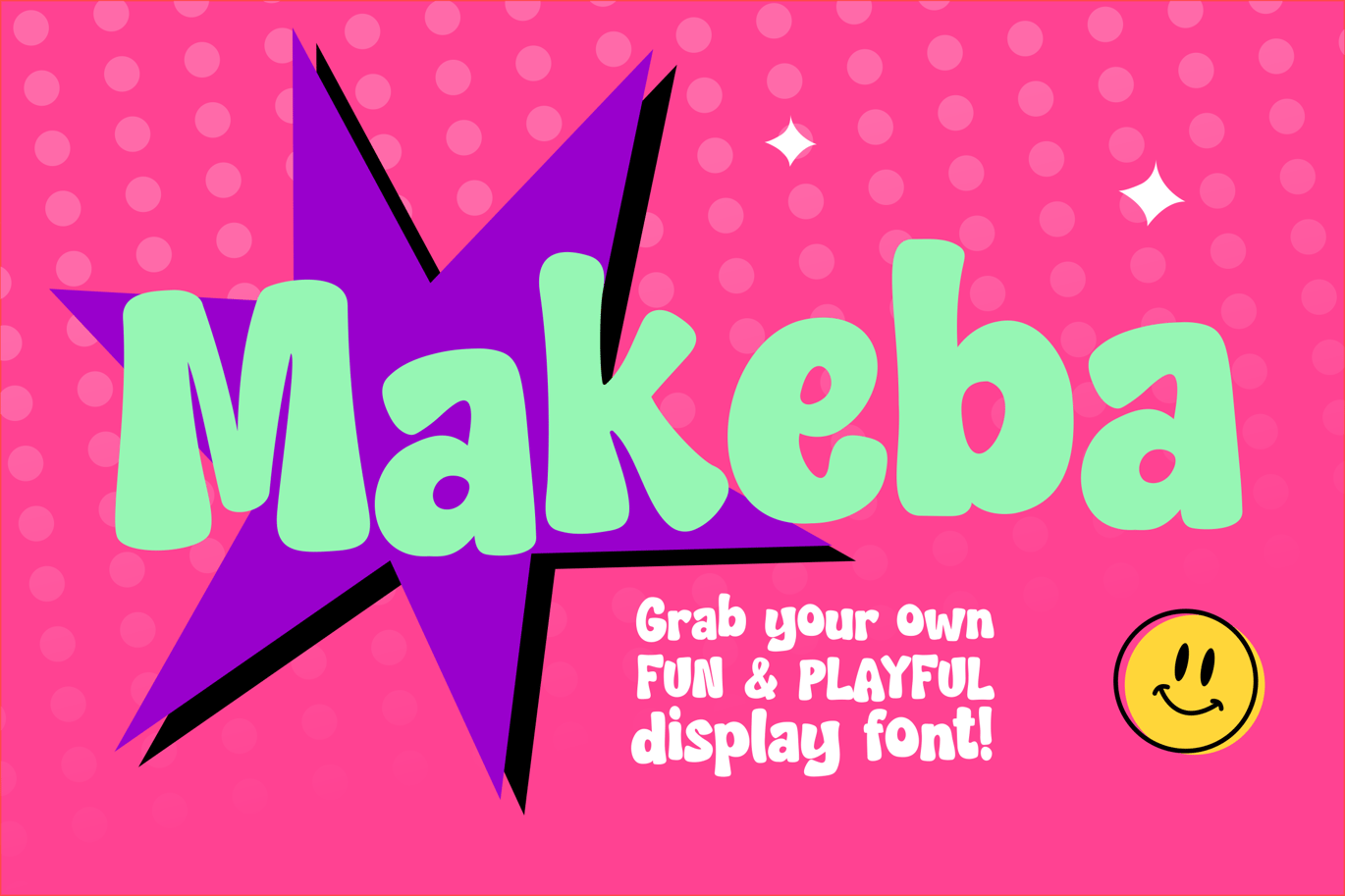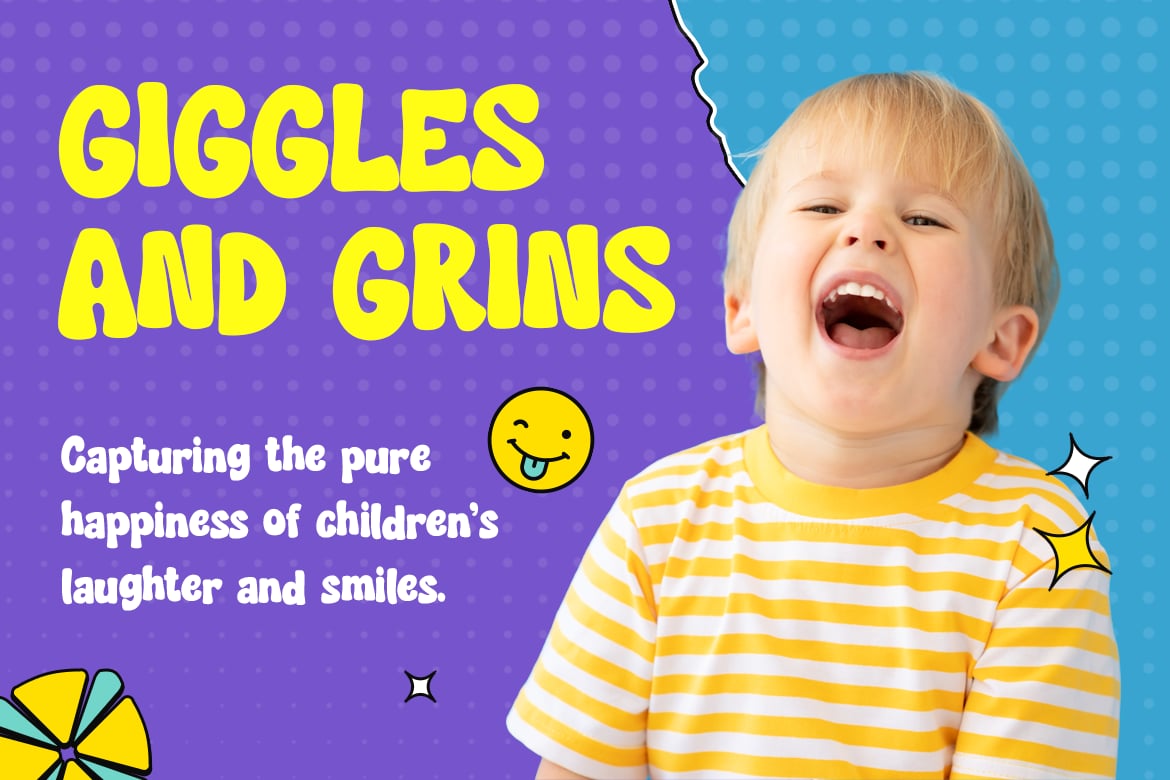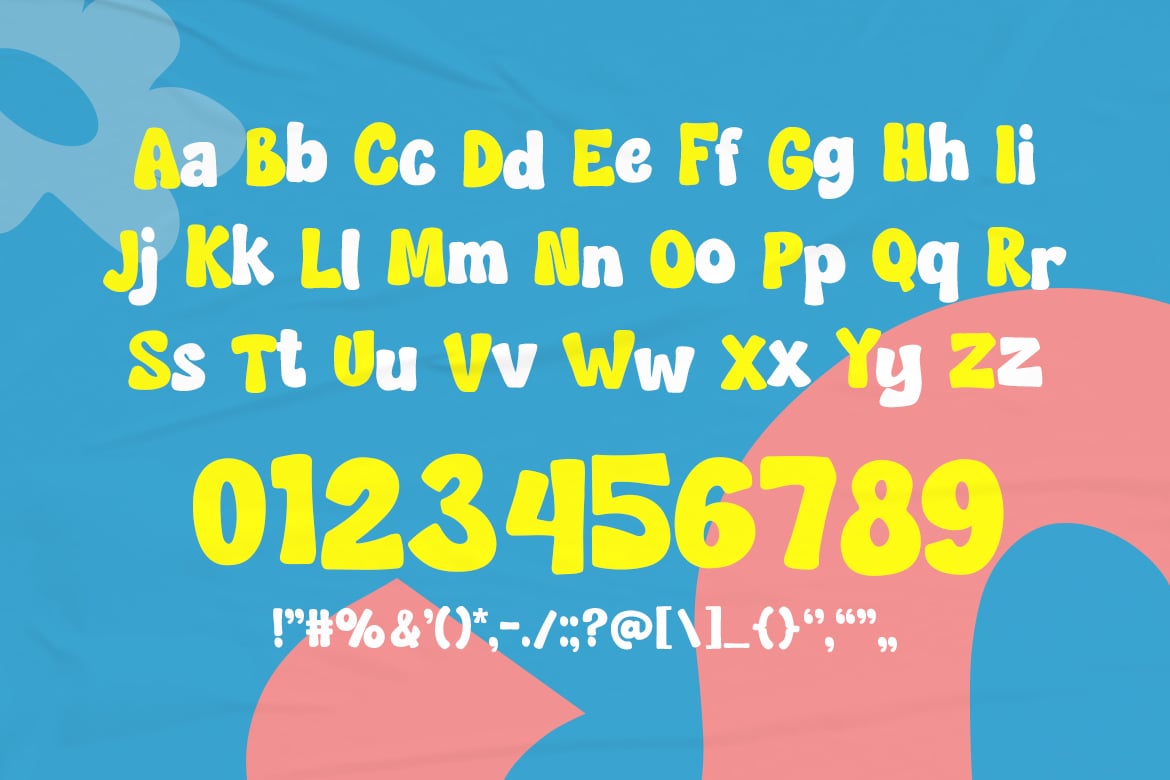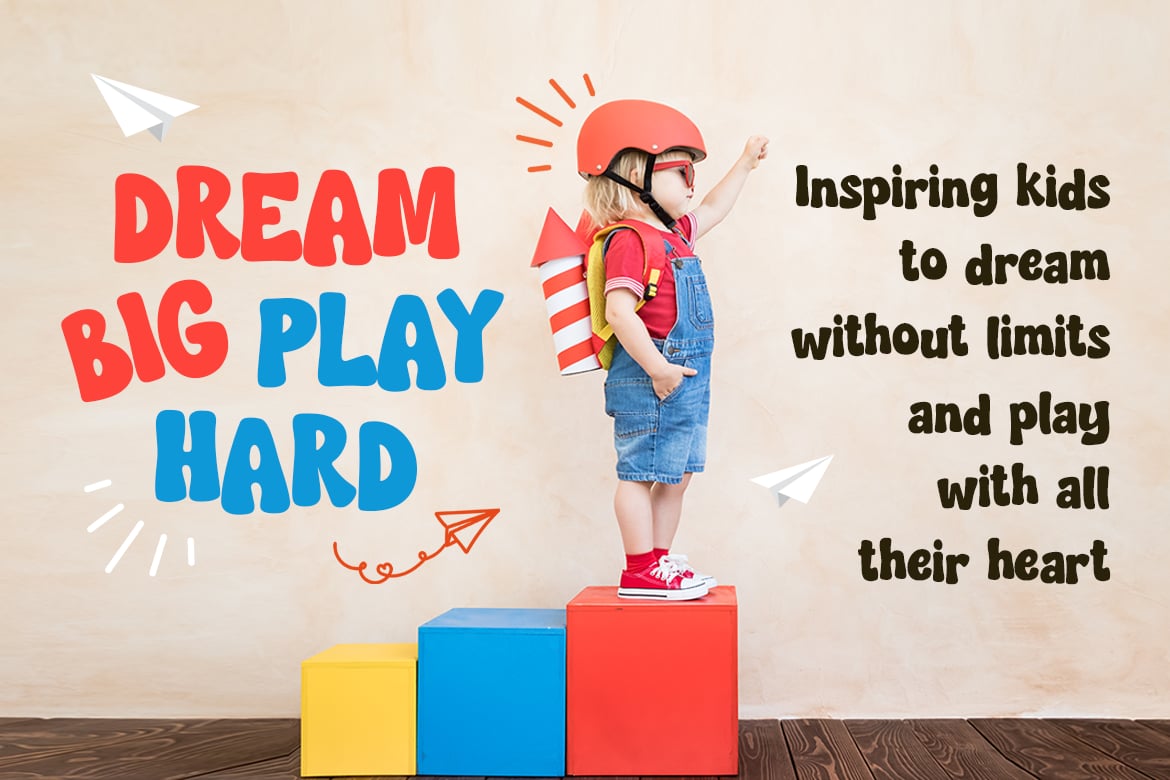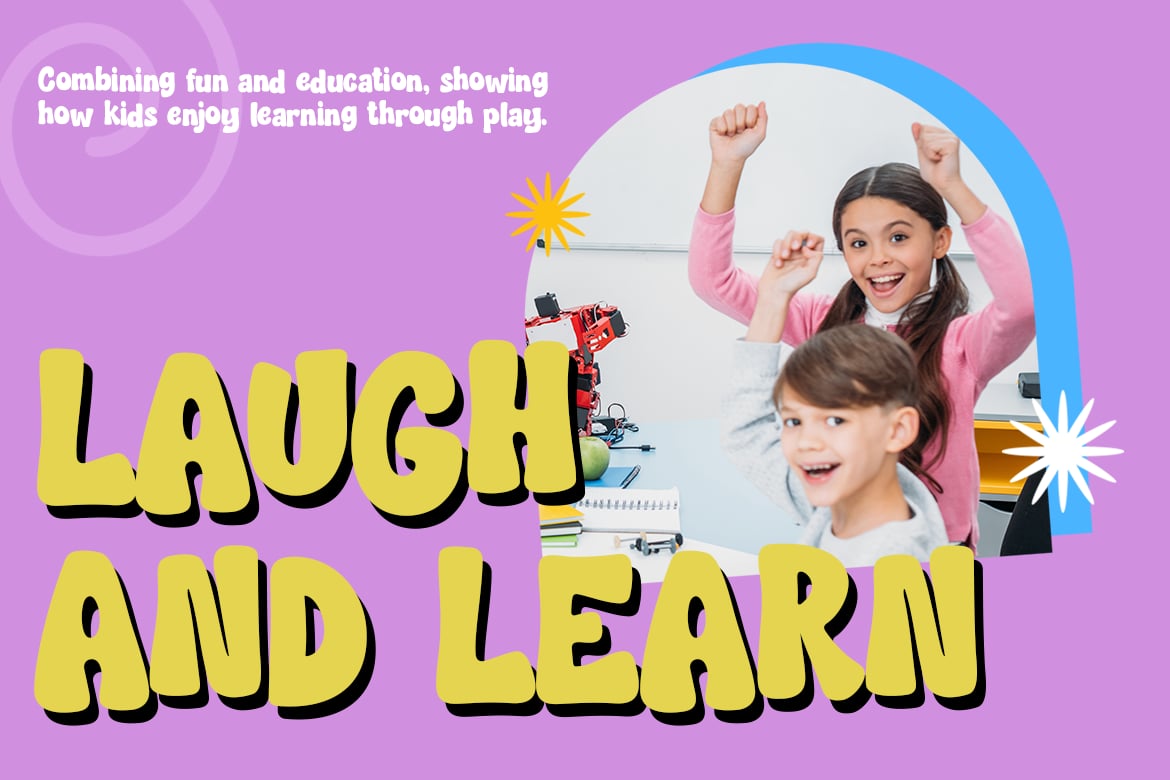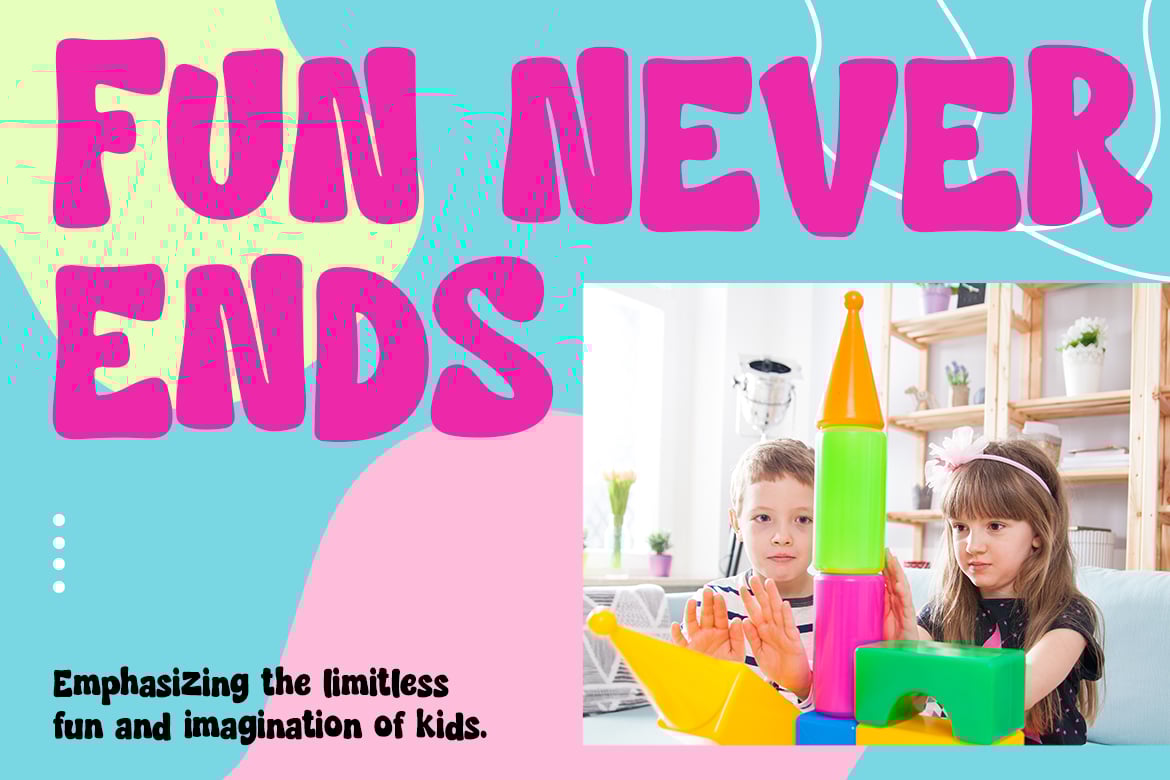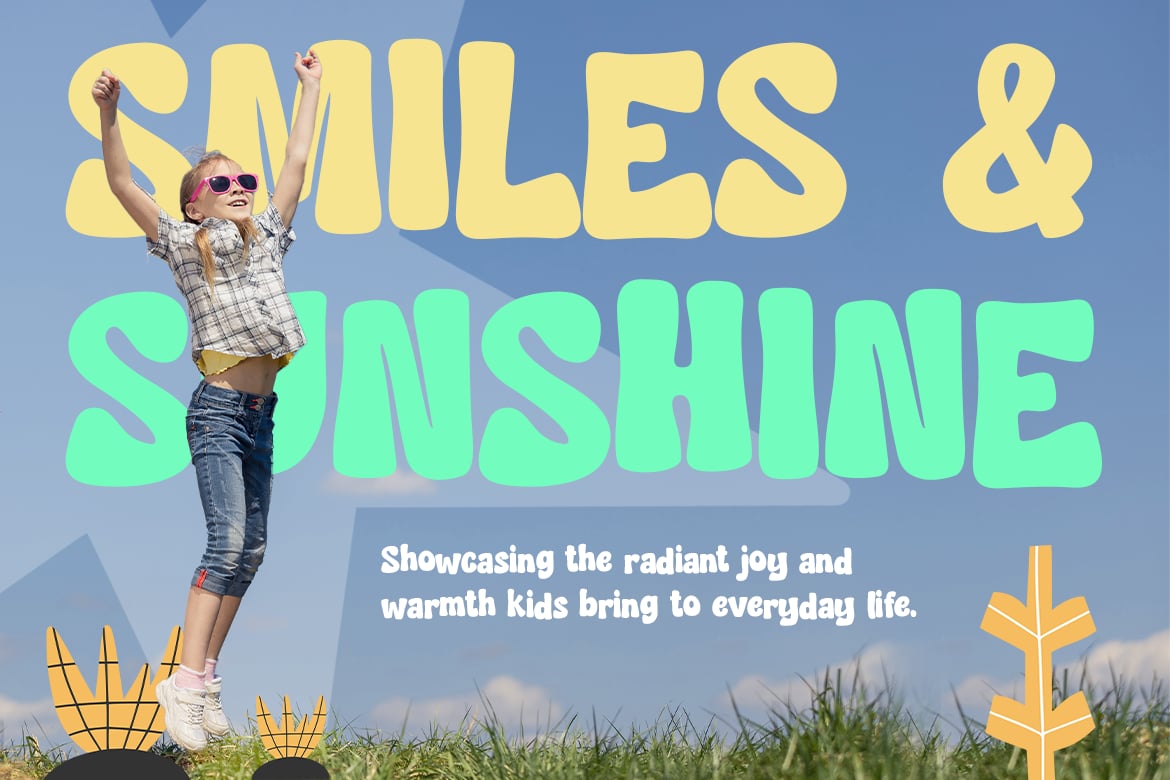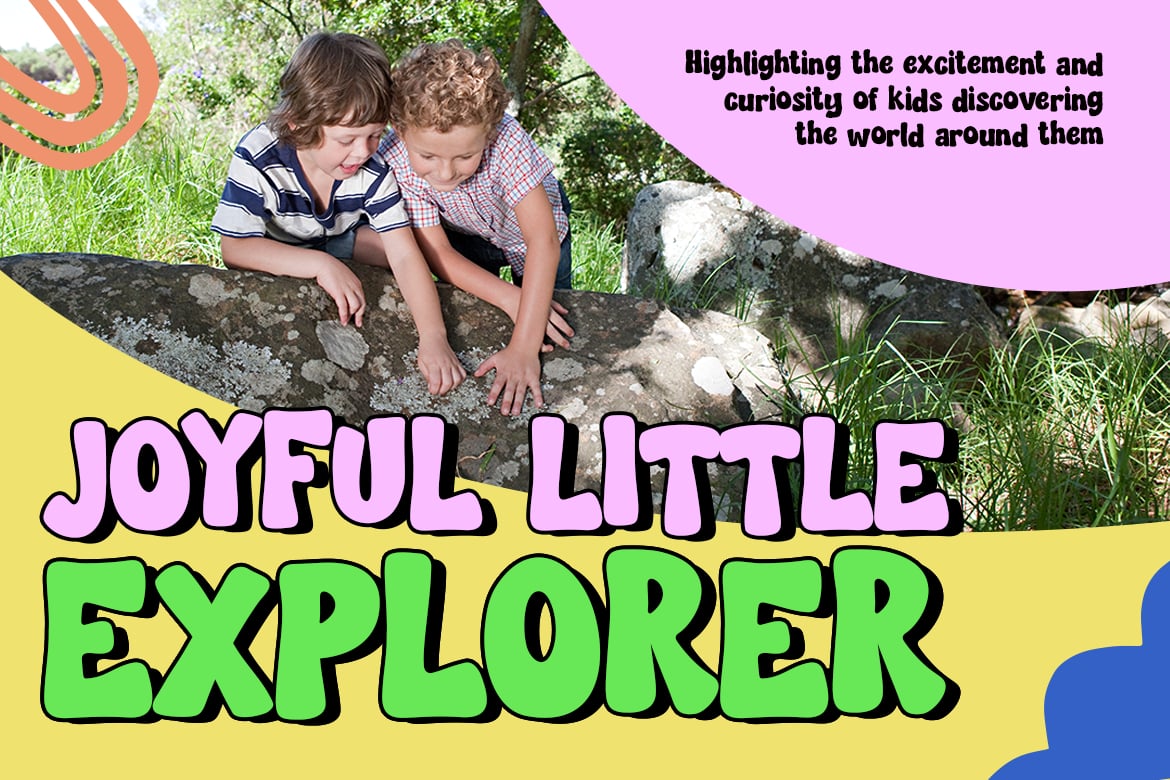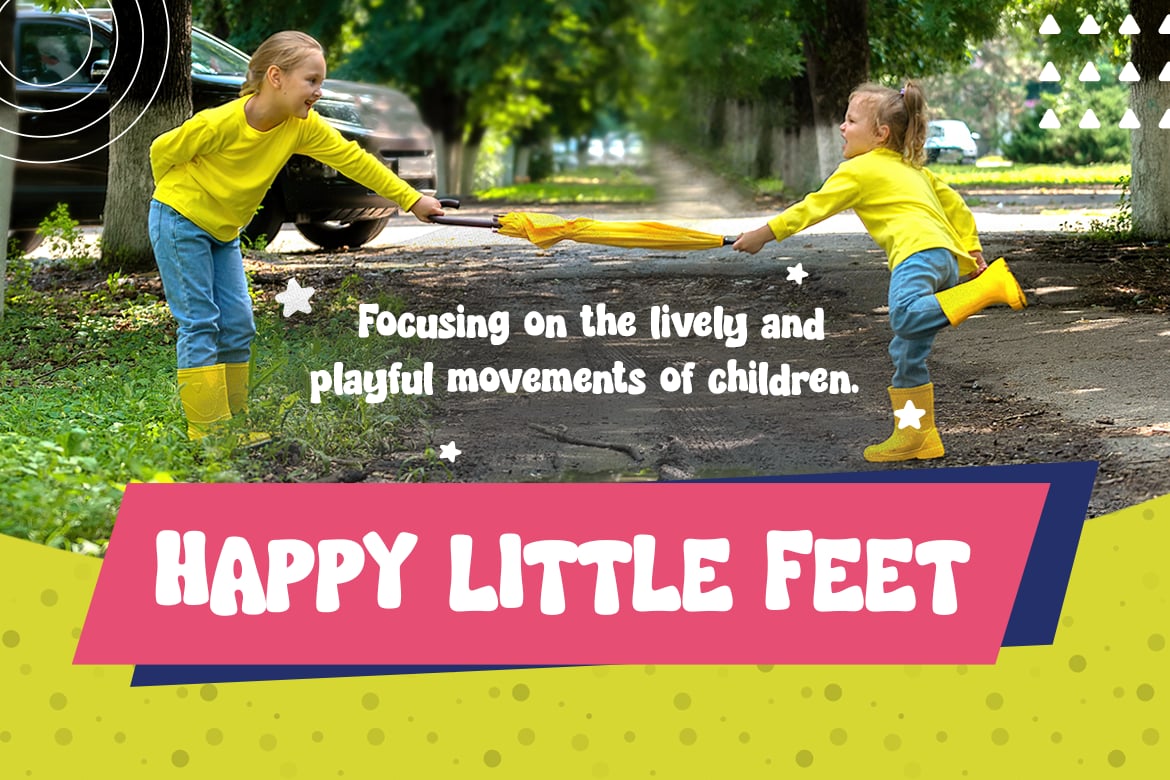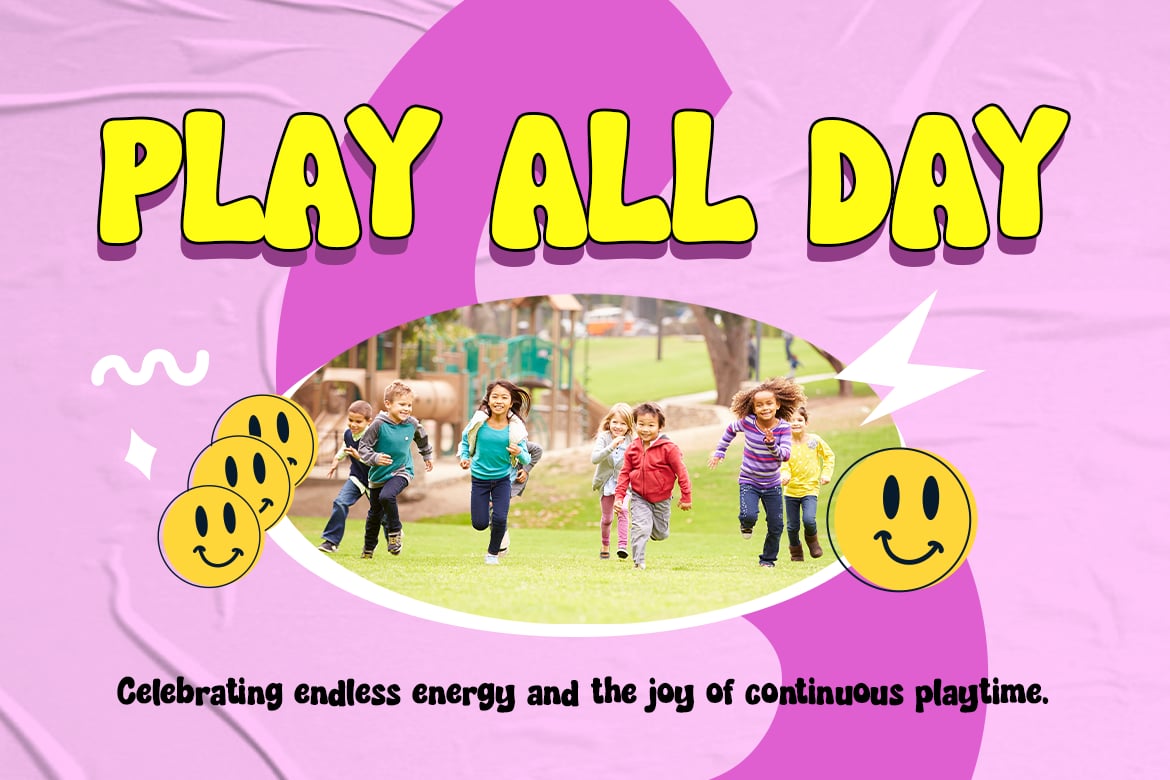
Playful Font – Makeba
Makeba is a playful and bouncy display font that exudes joy and positivity. Its quirky, rounded letterforms and fun baseline shifts give your designs a cheerful, light-hearted appeal. Whether you’re working on children’s books, playful branding, or any project that needs an extra touch of happiness, Makeba is here to bring the fun.
Perfect for kids’ projects, toy packaging, posters, book covers, and colorful social media graphics, this font is designed to bring out the smiles and laughter in any design.